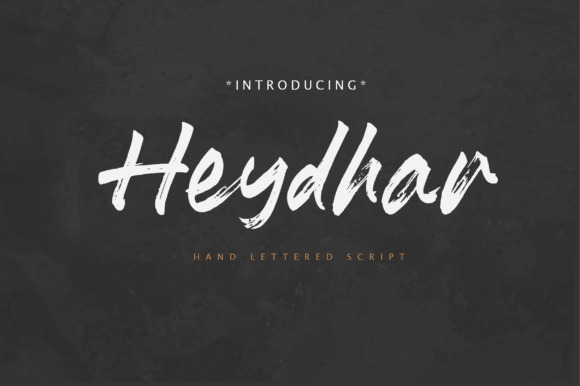
Introducing Heydhar Font, the ultimate script font for personalizing your digital creations. With its distinctive handwritten style, Heydhar will bring a touch of authenticity and flair to your designs.
Unleash your inner artist and let Heydhar elevate your greeting cards, blog posts, social media posts, and more. Its unique and enchanting appeal will capture the attention of your audience, leaving a lasting impression.
Heydhar is meticulously crafted to convey a sense of intimacy and individuality. Its flowing lines and expressive characters exude a natural and personal touch. Whether you're signing off on an email, designing a logo, or creating a personalized gift, Heydhar will add an extra touch of sophistication and charm.
As the perfect font for signatures, Heydhar will transform your digital handwriting into a work of art. Its stylish and legible strokes will elevate your emails, documents, and online presence.
With Heydhar Font, you'll:
* Captivate your audience with its authentic and eye-catching design
* Express your creativity effortlessly with its versatile and charming style
* Enhance your digital creations with a personal and authentic touch
* Elevate your emails and online presence with its unique and professional appearance